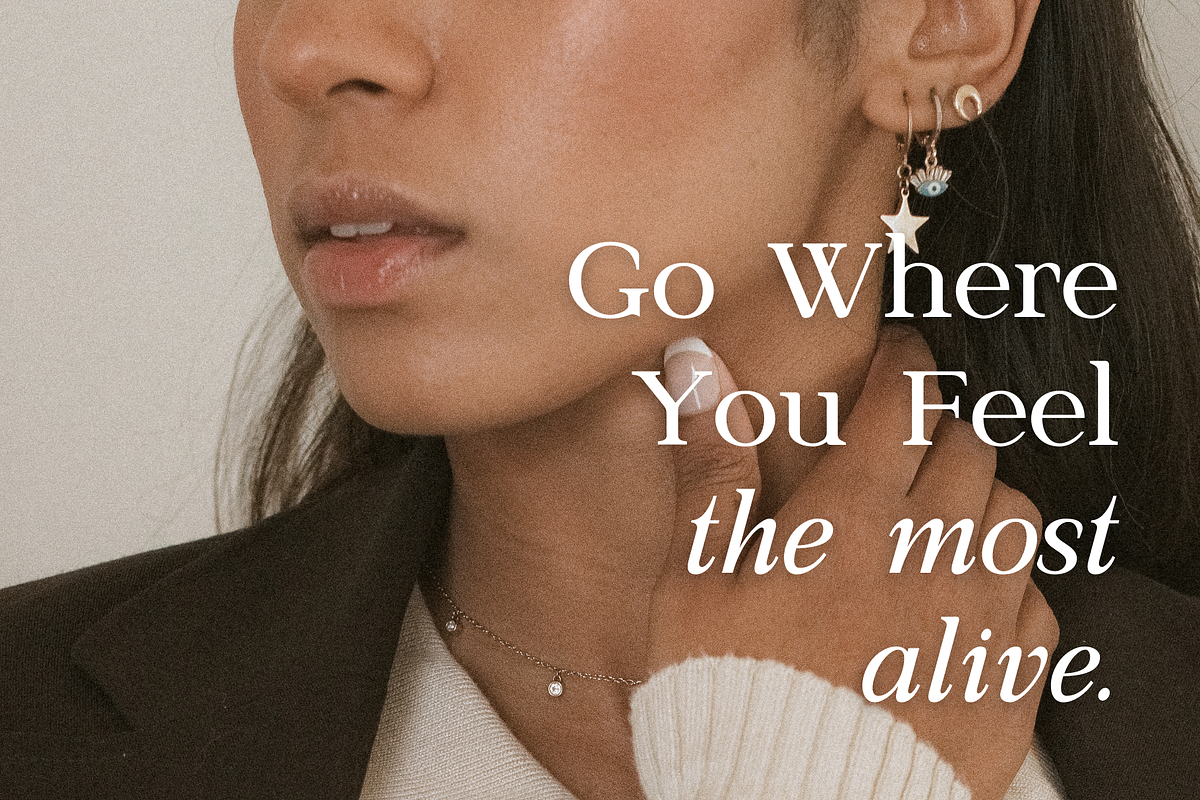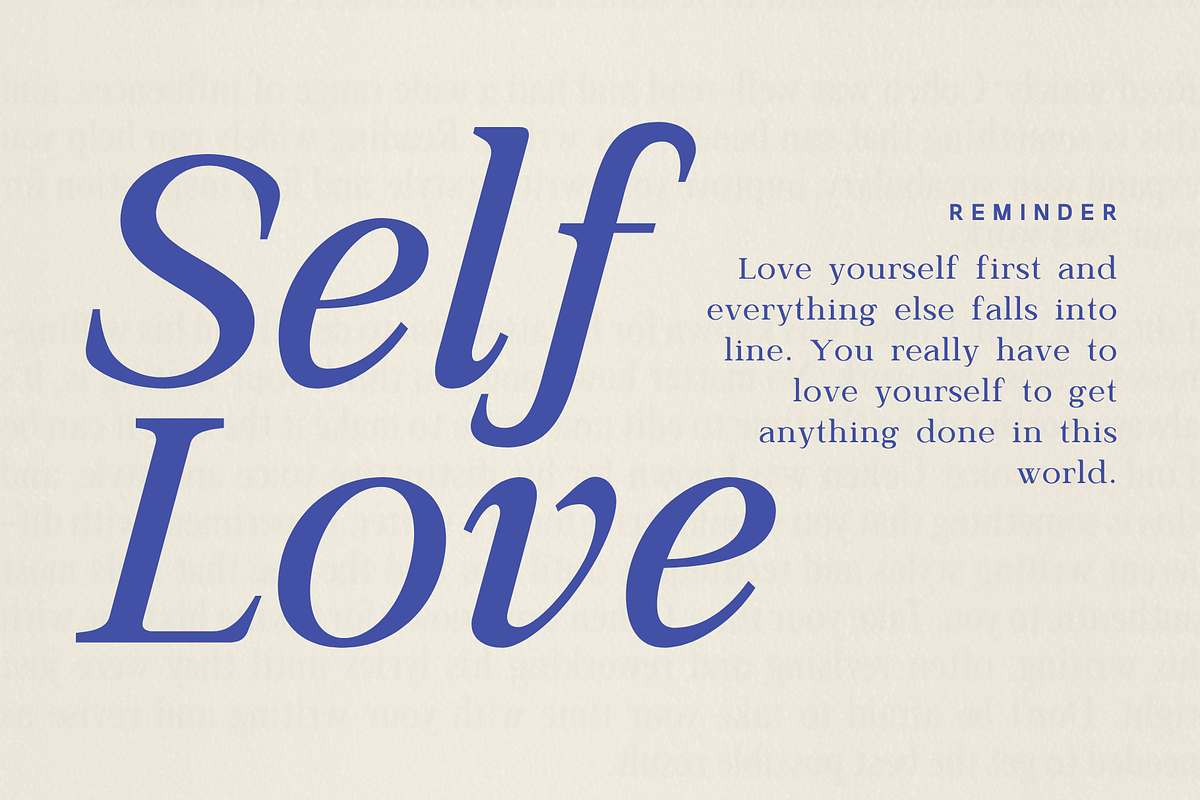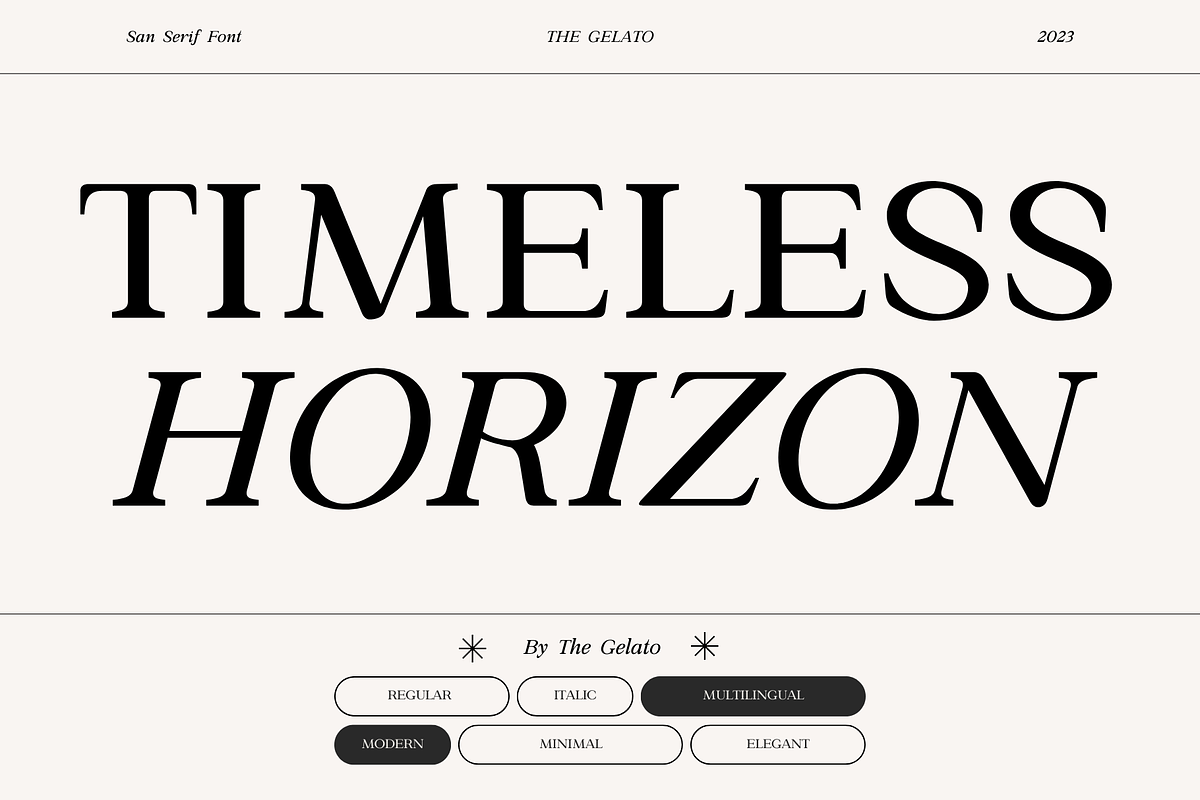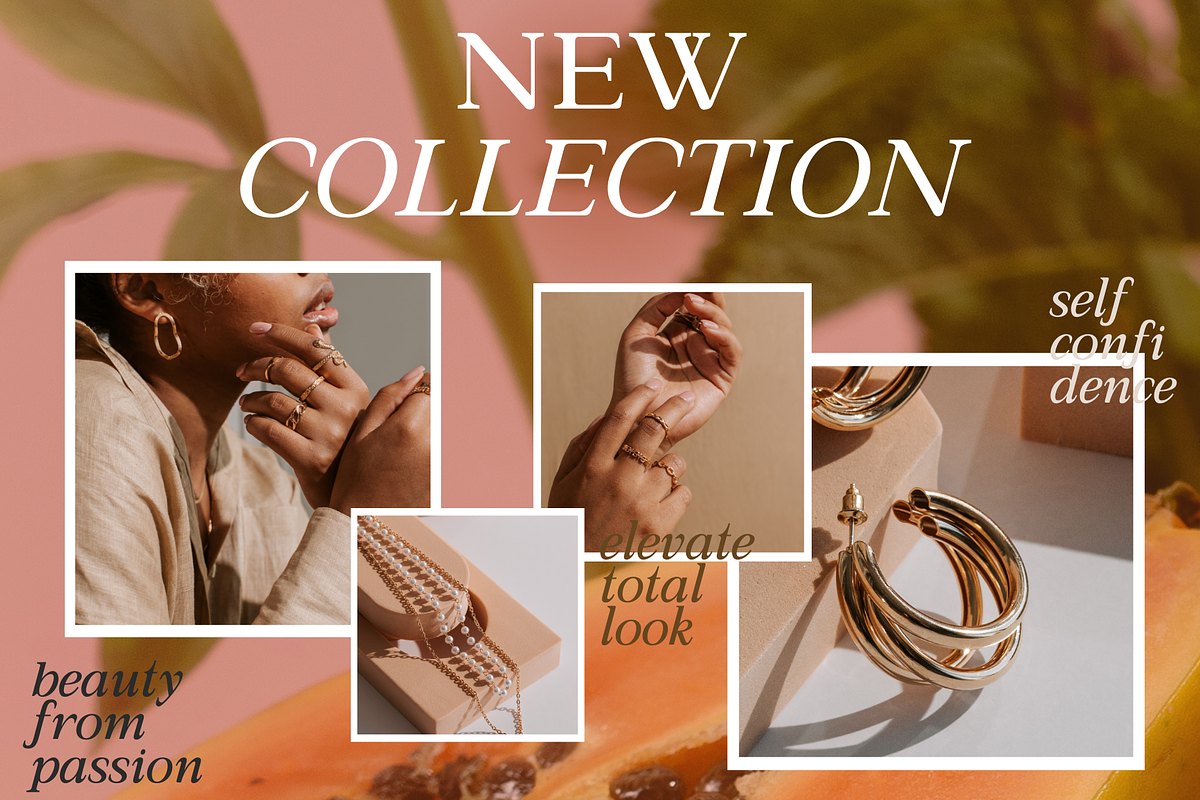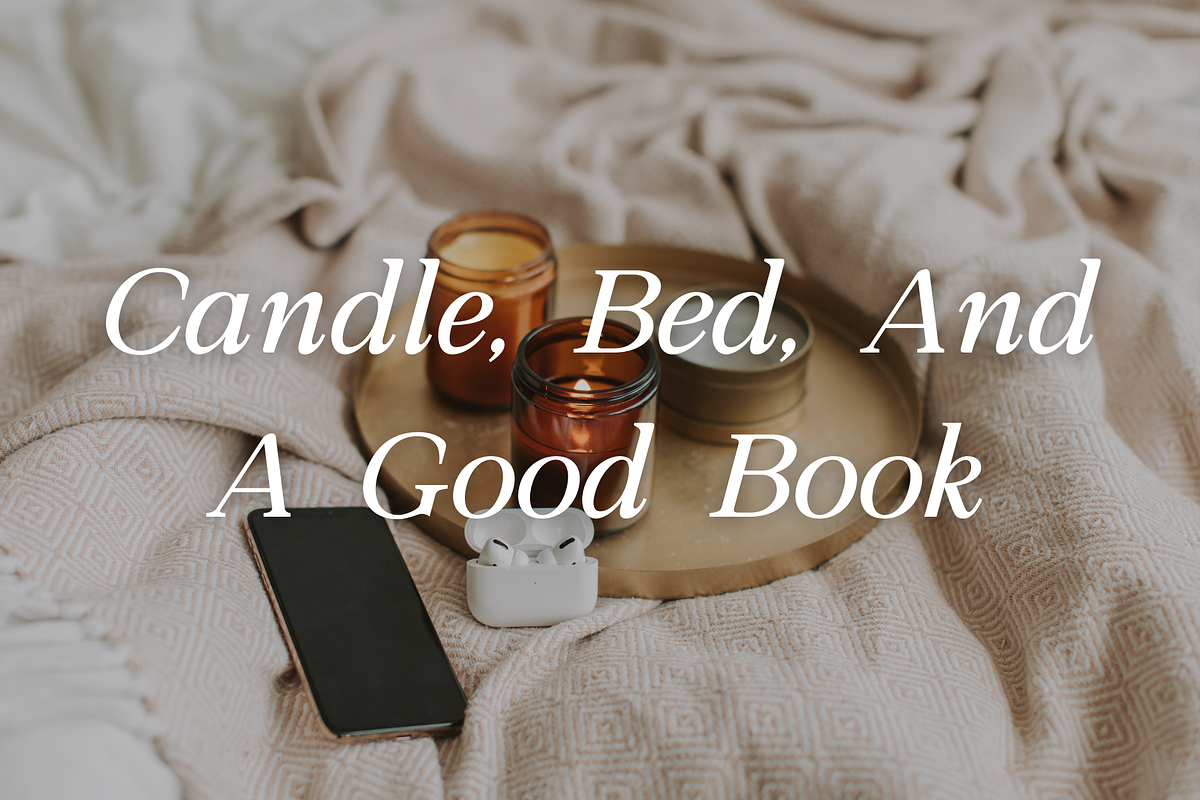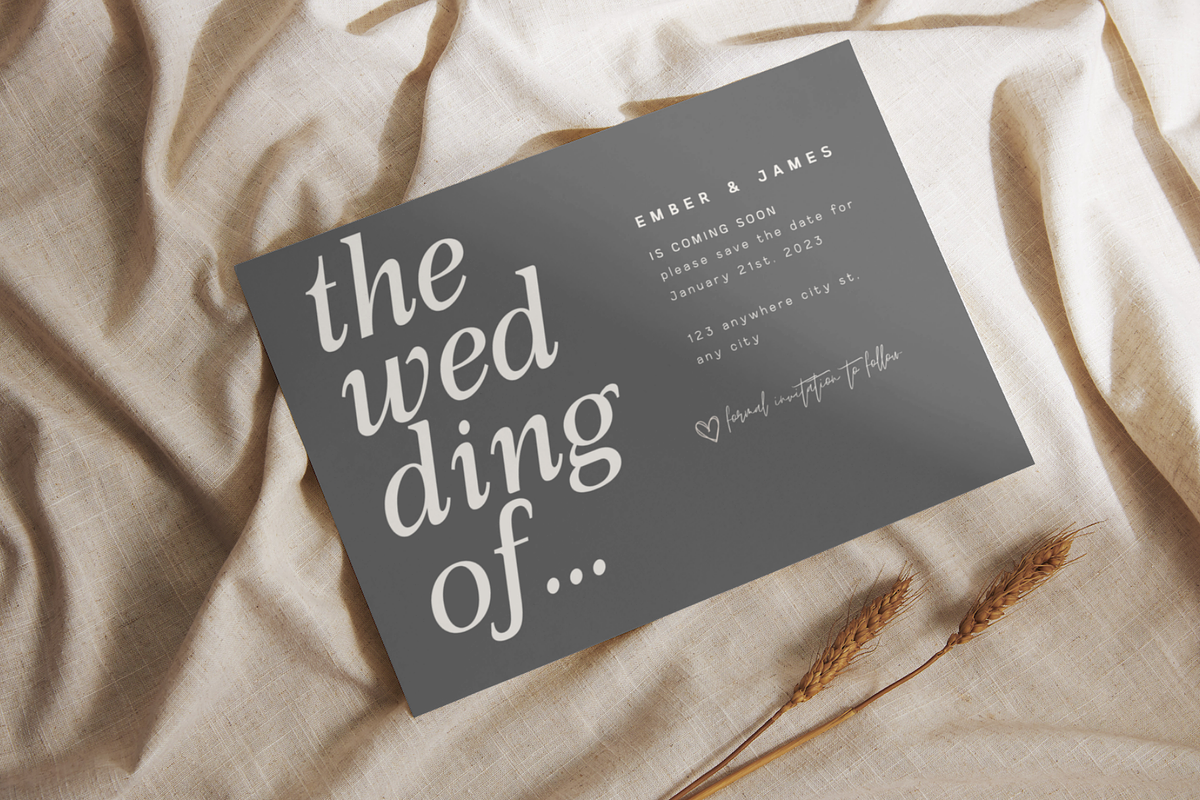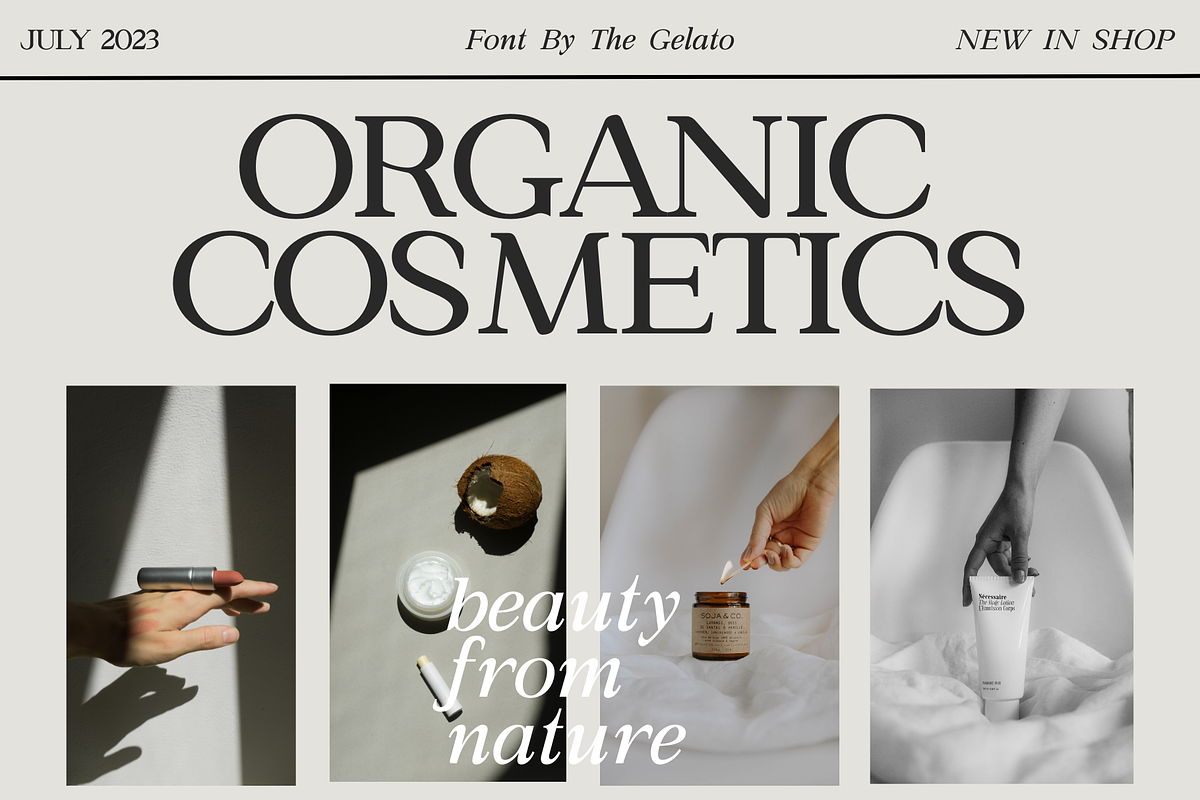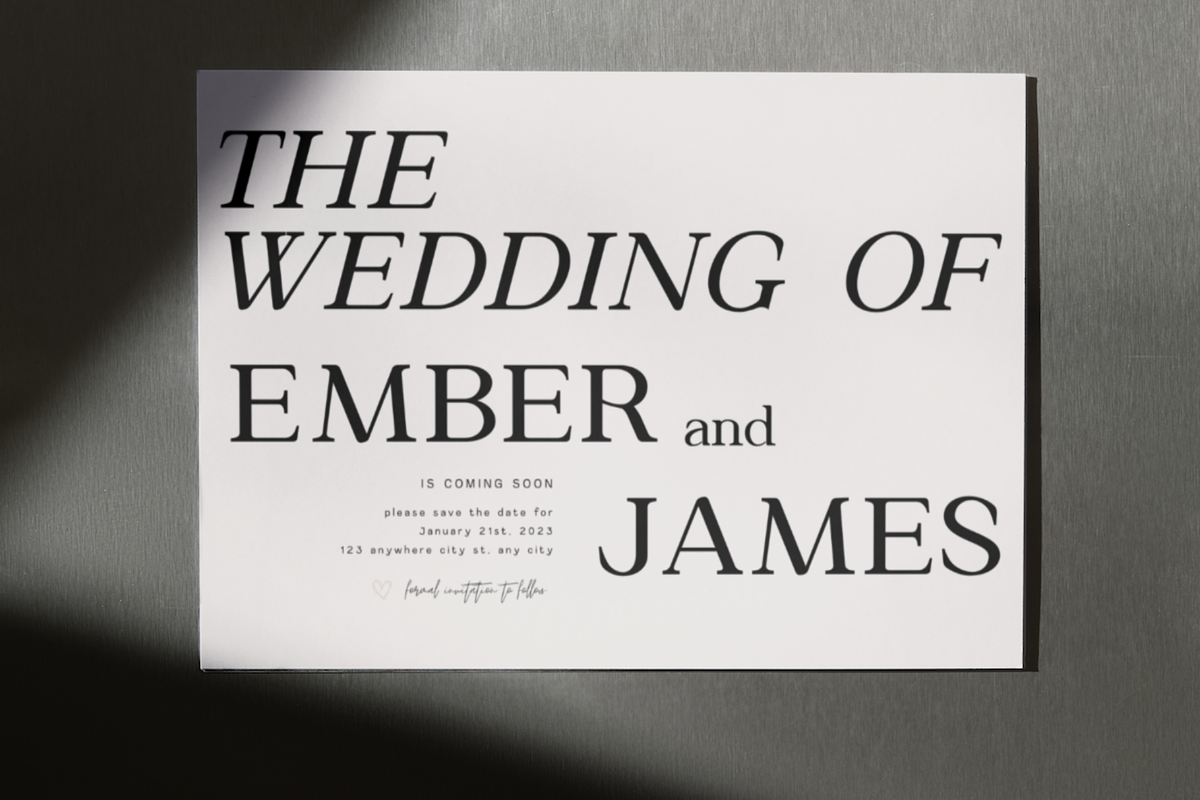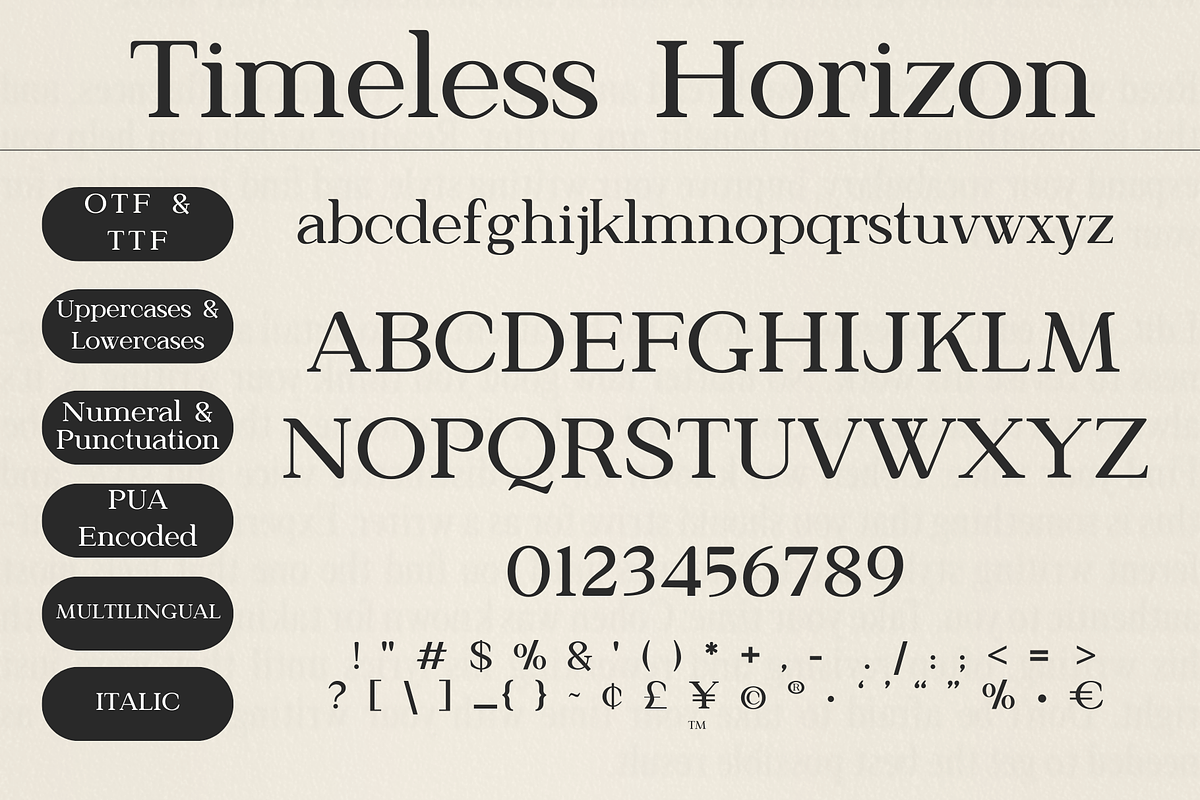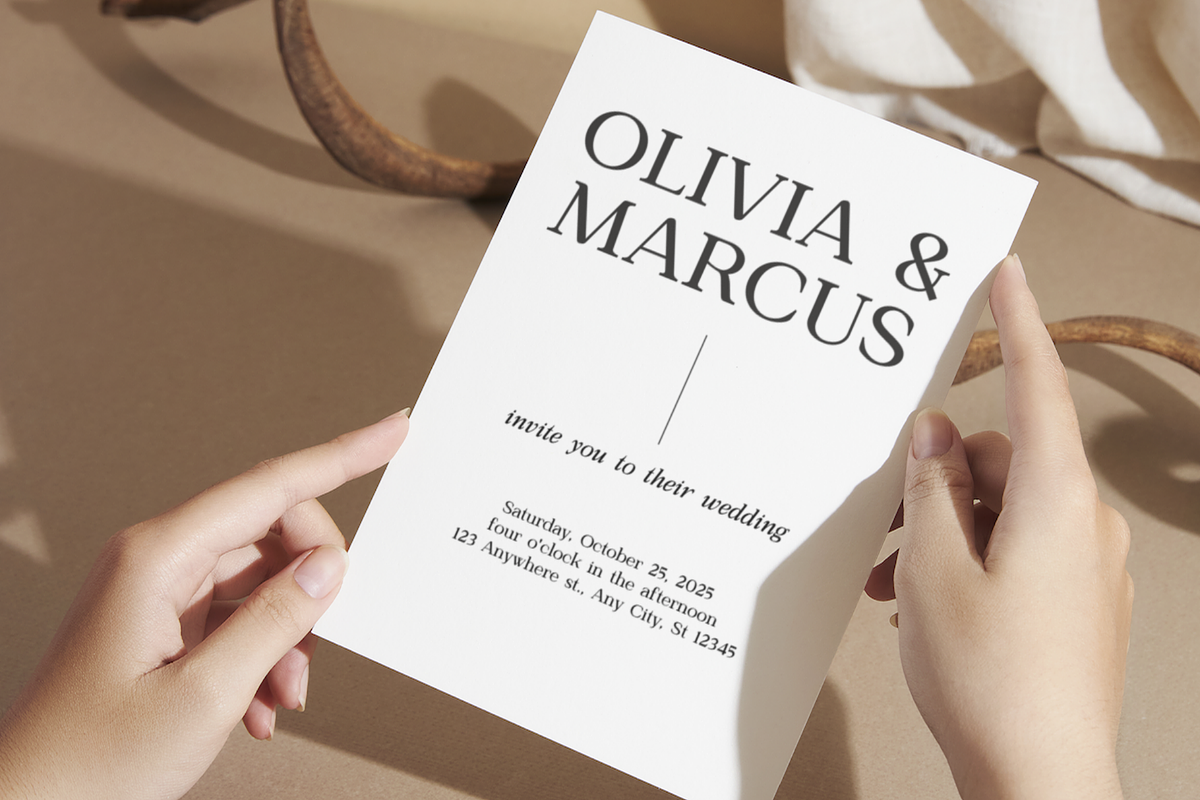
Timeless Horizon: Modern Serif
Timeless Horizon is a Modern Minimal Serif Font that can be used as a Wedding Invitation Font, Elegant Branding Font, Luxury Brand Font, Classic Logo Font, Premium Packaging Font, Fashion Canva Elegant font, Unique Branding Font, Stylish Urban Font, Minimal Procreate Font, Typography Canva Font, Magazine Layout Font, Classy Logo Font, Minimal Branding Font
Perfectly suitable for numerous use such as quotations, banners, logos, product packaging, titles, headers, Business cards, menu lists, and invitation cards!